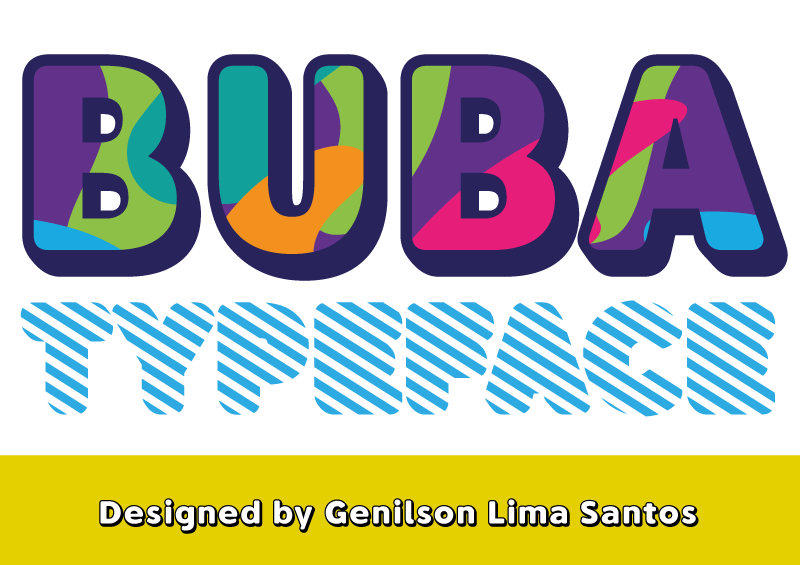
Font name: | Buba |
Author: | Genilson L. Santos |
Note by Genilson L. Santos | |
Buba is a sans serif with rounded terminals. Buba comprises 6 fonts (Outline, OutlineEroded, Shadow, ShadowEroded, Stripes and StripesEroded) that can be combined in layers. It is great for display use. Outline and Shadow variants are available for free (PERSONAL USE ONLY). FOR COMMERCIAL USE you should purchase it here: https://creativemarket.com/GenilsonSantos/849410-Buba See more: https://www.behance.net/gallery/41767307/BUBA-Typeface Have a question?: genilson.blacktype@gmail.com Designed by Genilson Lima Santos |